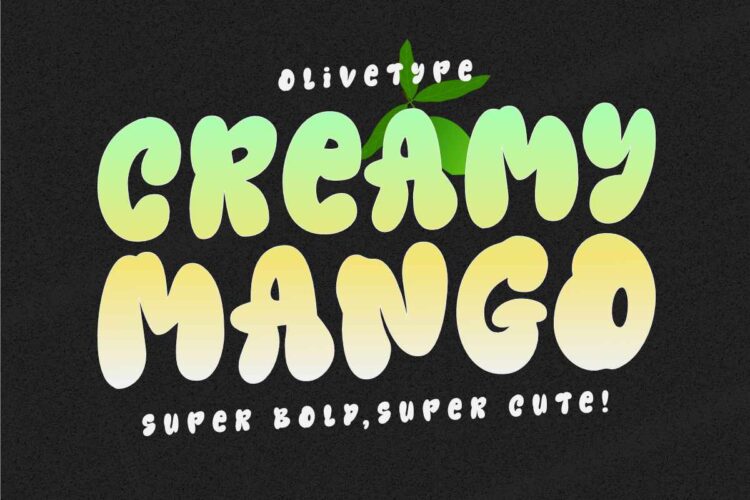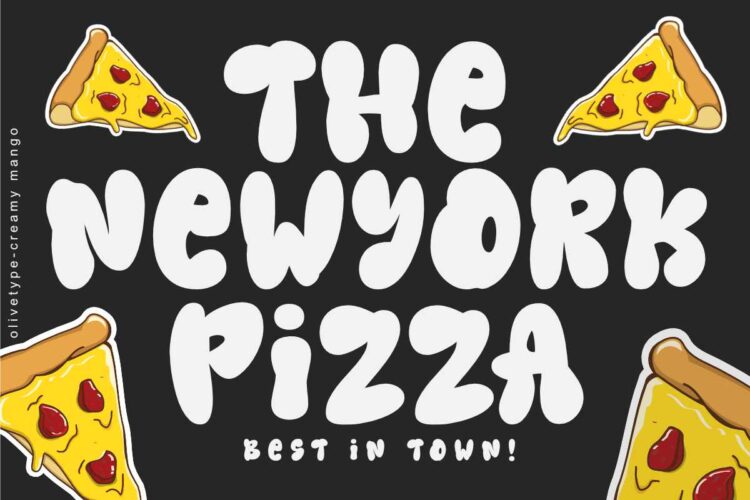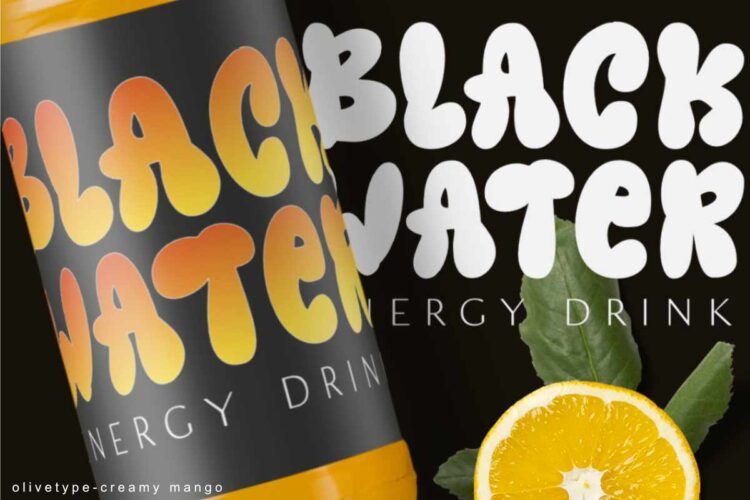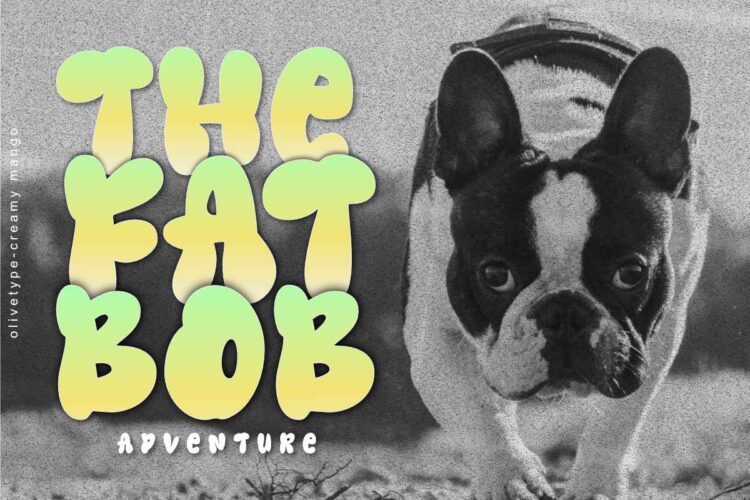
Creamy Mango is a bold and super cute display font. This font is suitable for headlines and branding! It’s unique and attention-grabbing, while still maintaining a cute aesthetic.
It’s super fun!